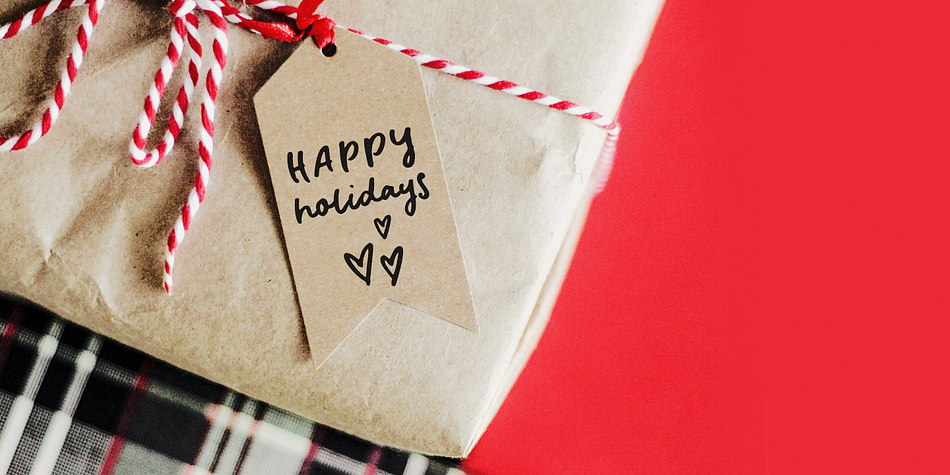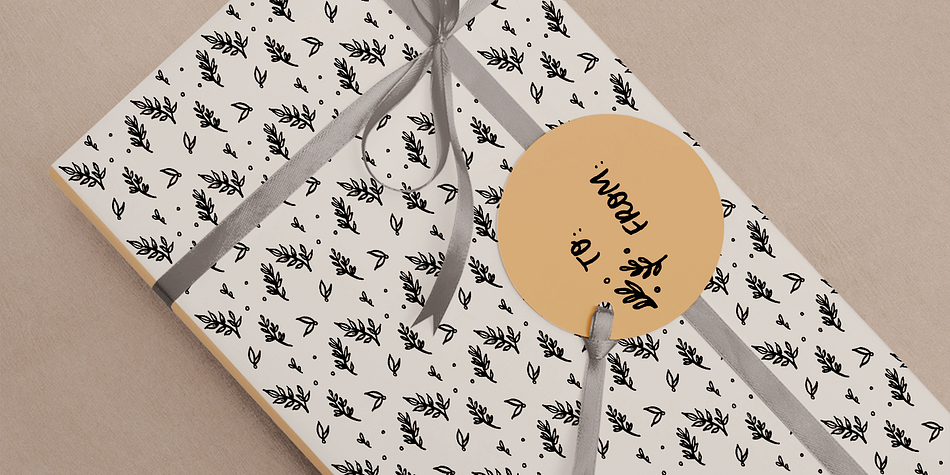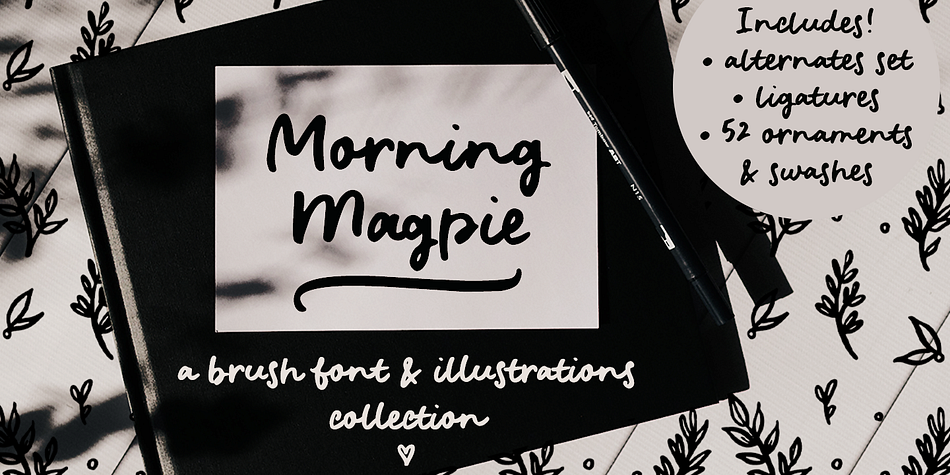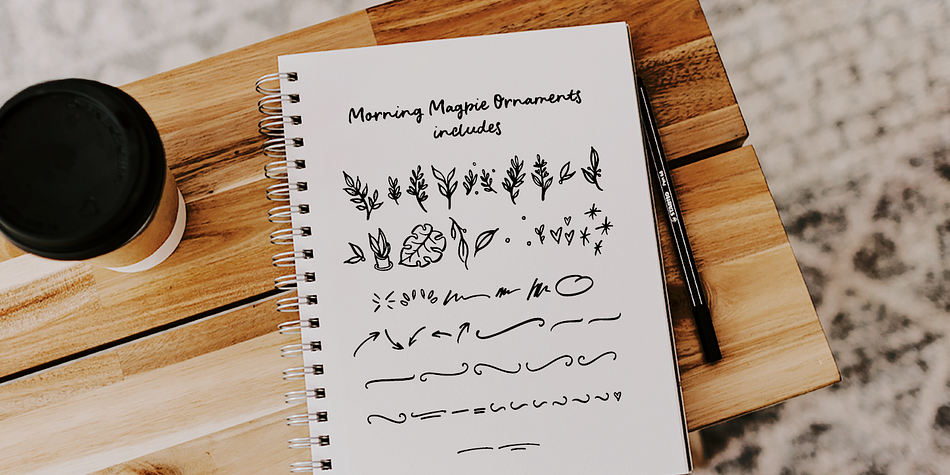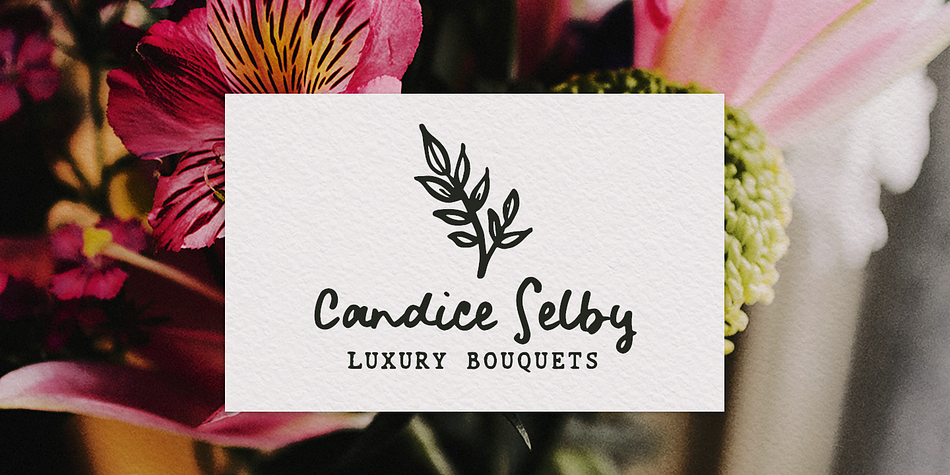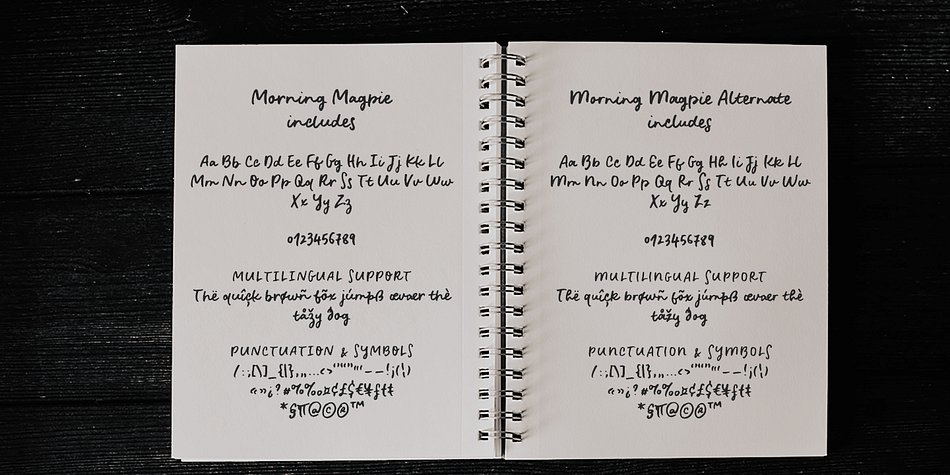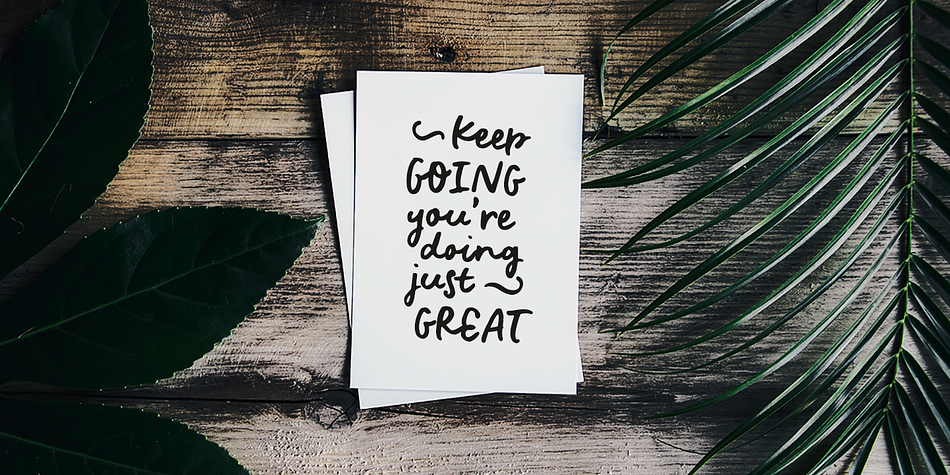
Designed by Ana Parracho, Morning Magpie is a hand drawn, script and dingbat font family. This typeface has three styles and was published by Ana's Fonts.
Morning Magpie is a cute handmade brush font with matching illustrations and decorative elements. With an alternates character set, it is perfect for any design that needs a quirky handwritten feel, such as logotypes, postcards and tags, social media quotes. The illustrations will also look great in patterns, in wrapping paper and backgrounds.
Morning Magpie includes:
- Morning Magpie, a brush font with ligatures for a more natural handwritten look
- Morning Magpie Alternate, a set of alternative characters for A-Z, a-z and 0-9
- Morning Magpie Ornaments, a set of 52 drawings, swashed and underlines